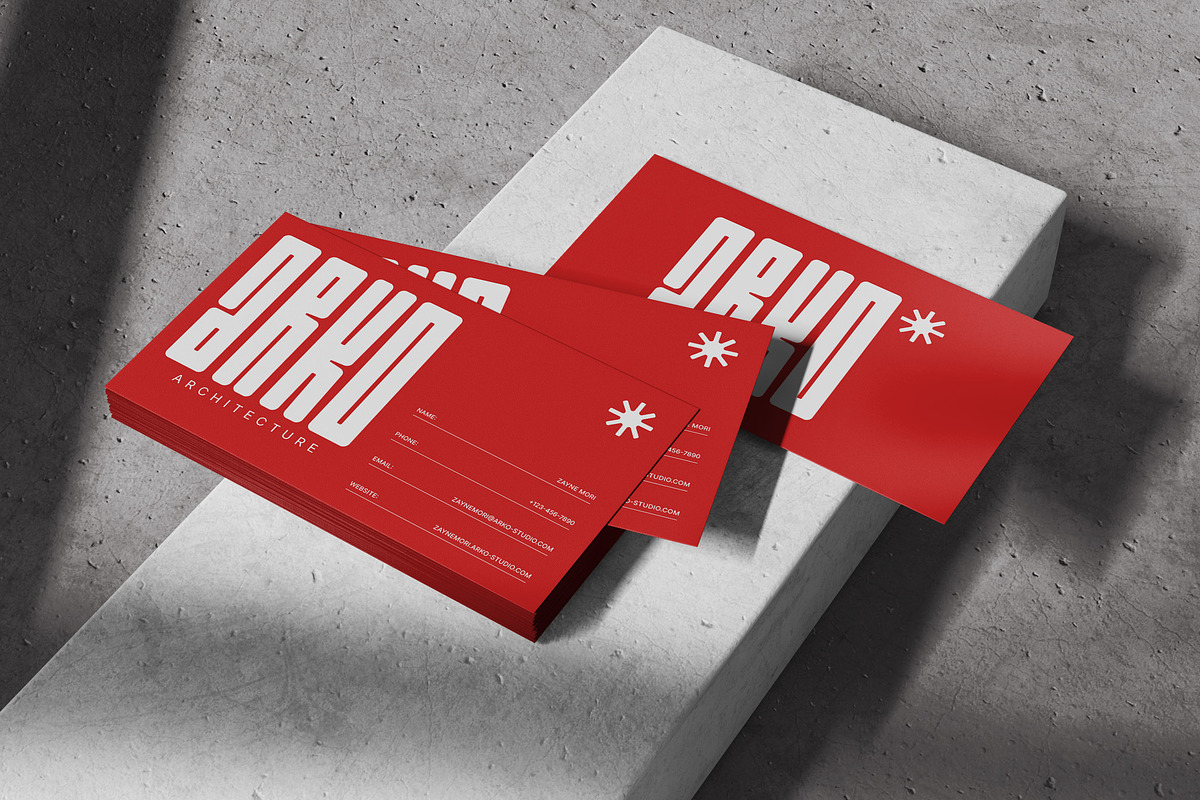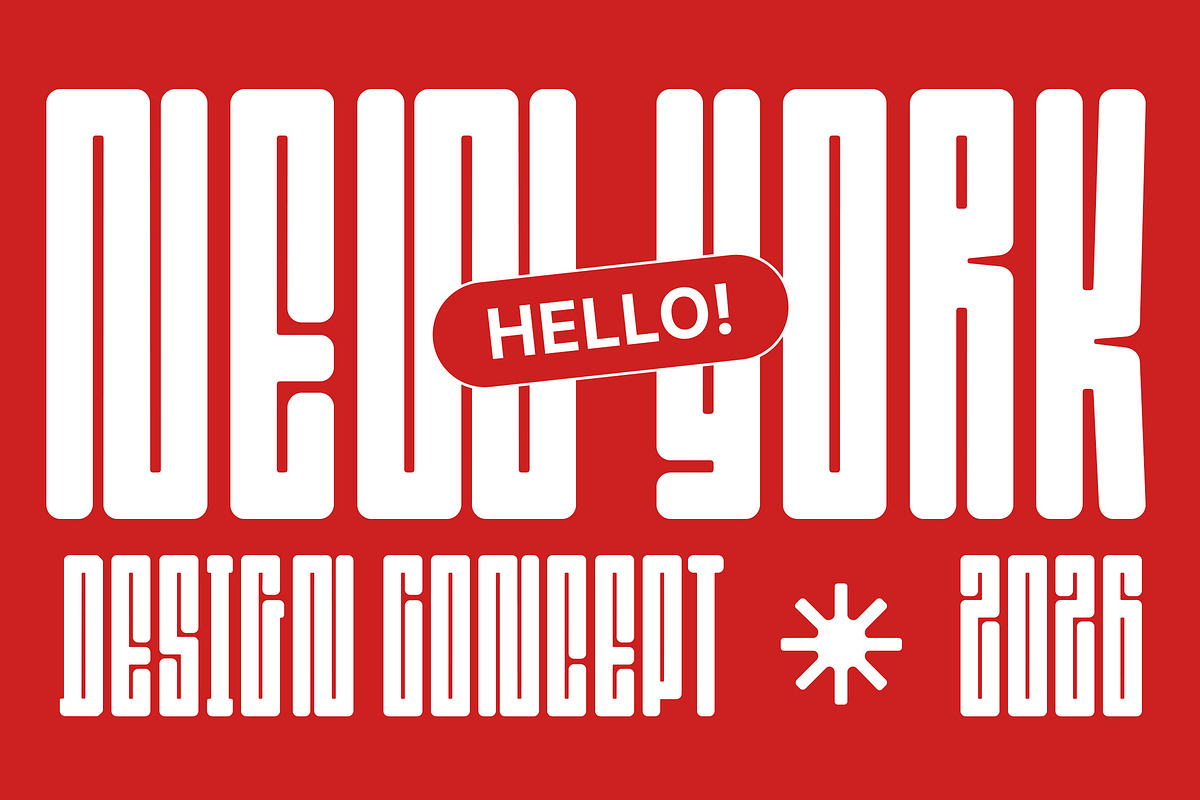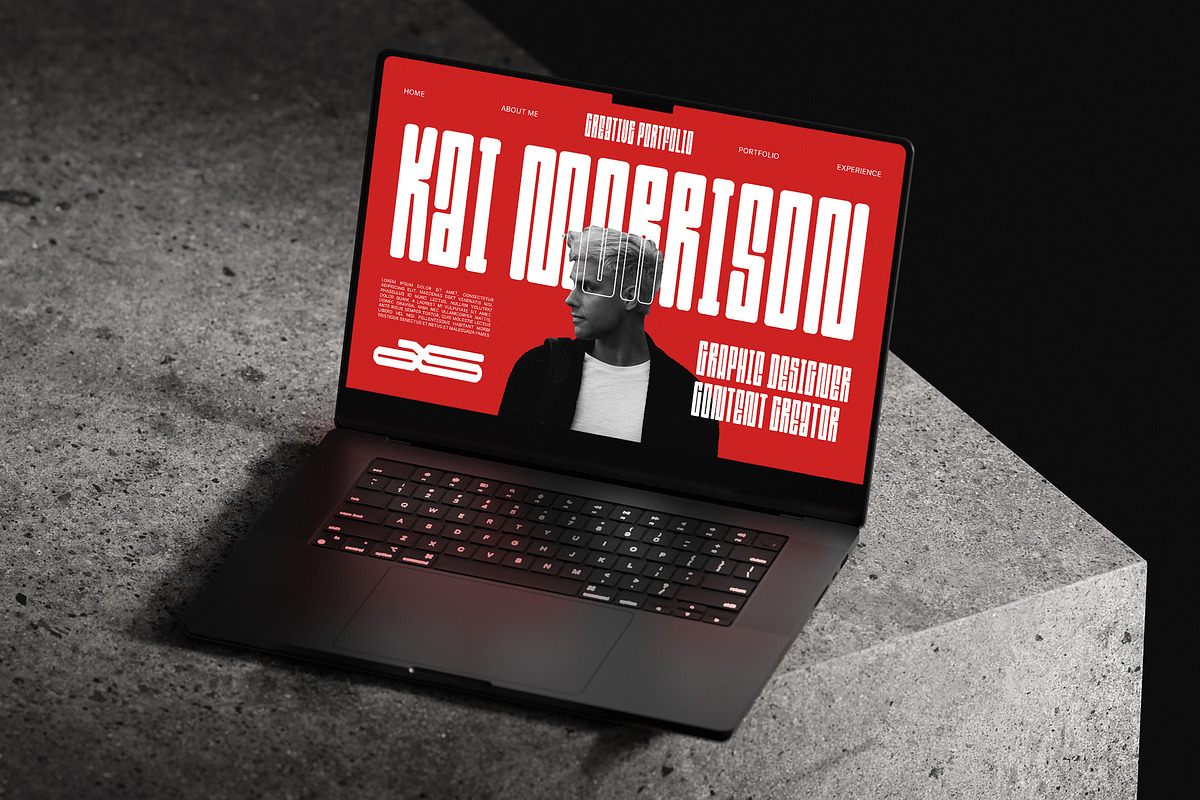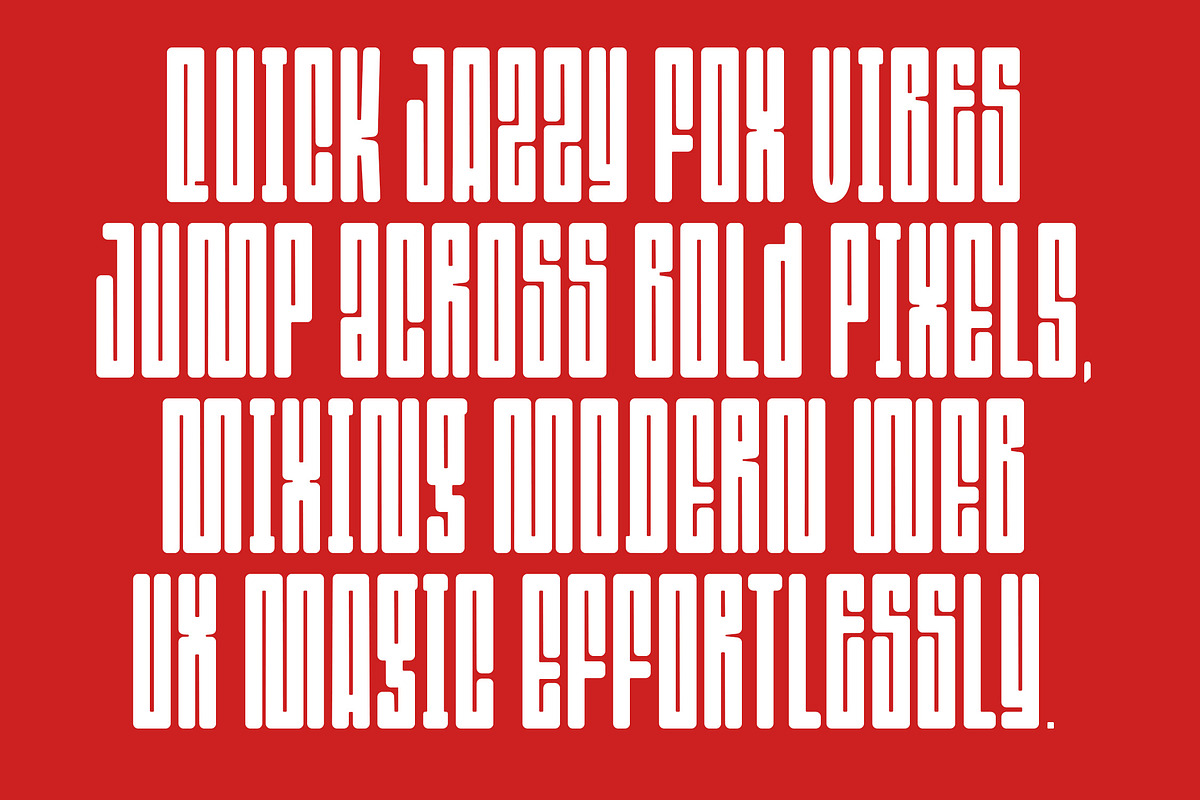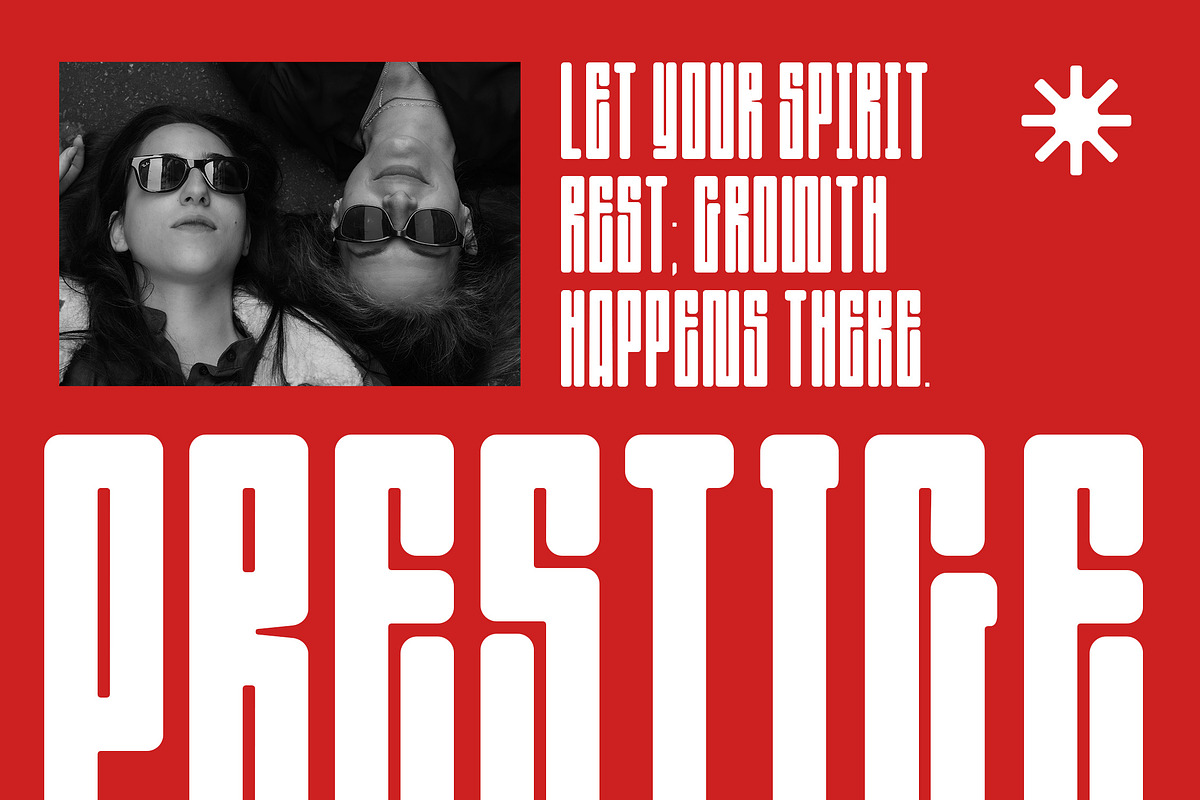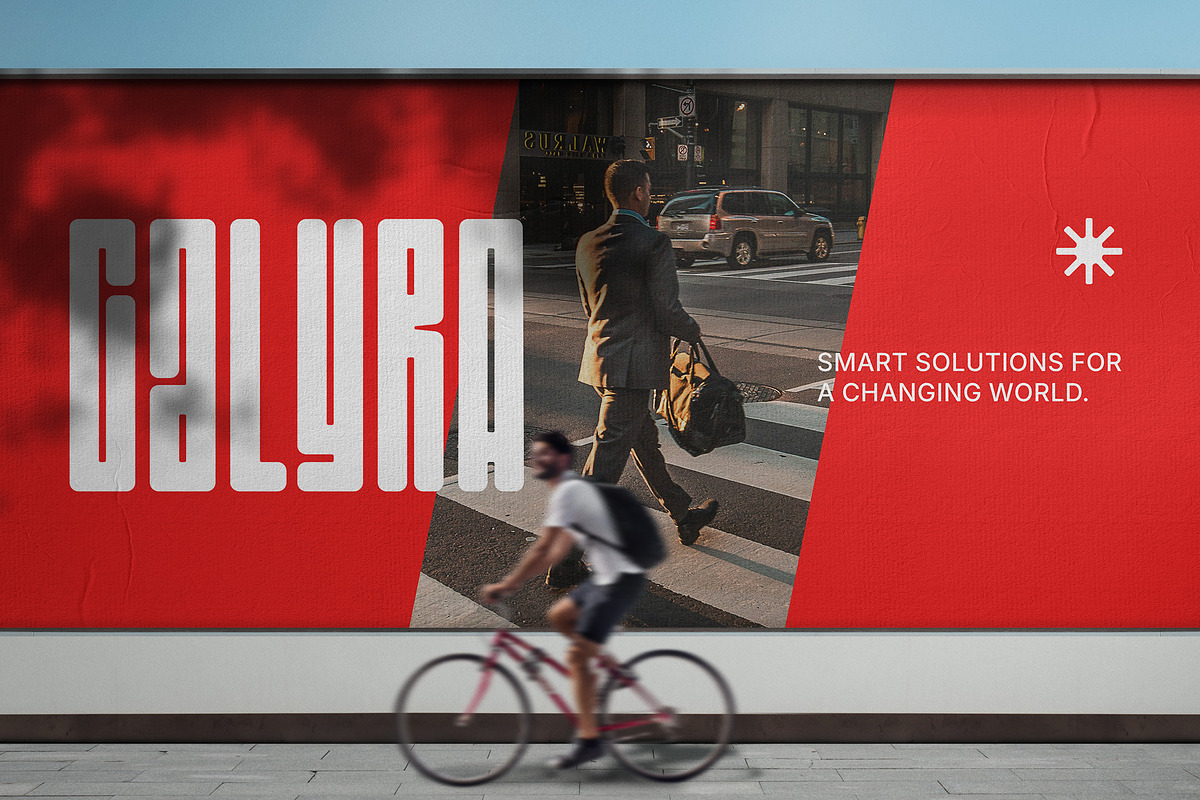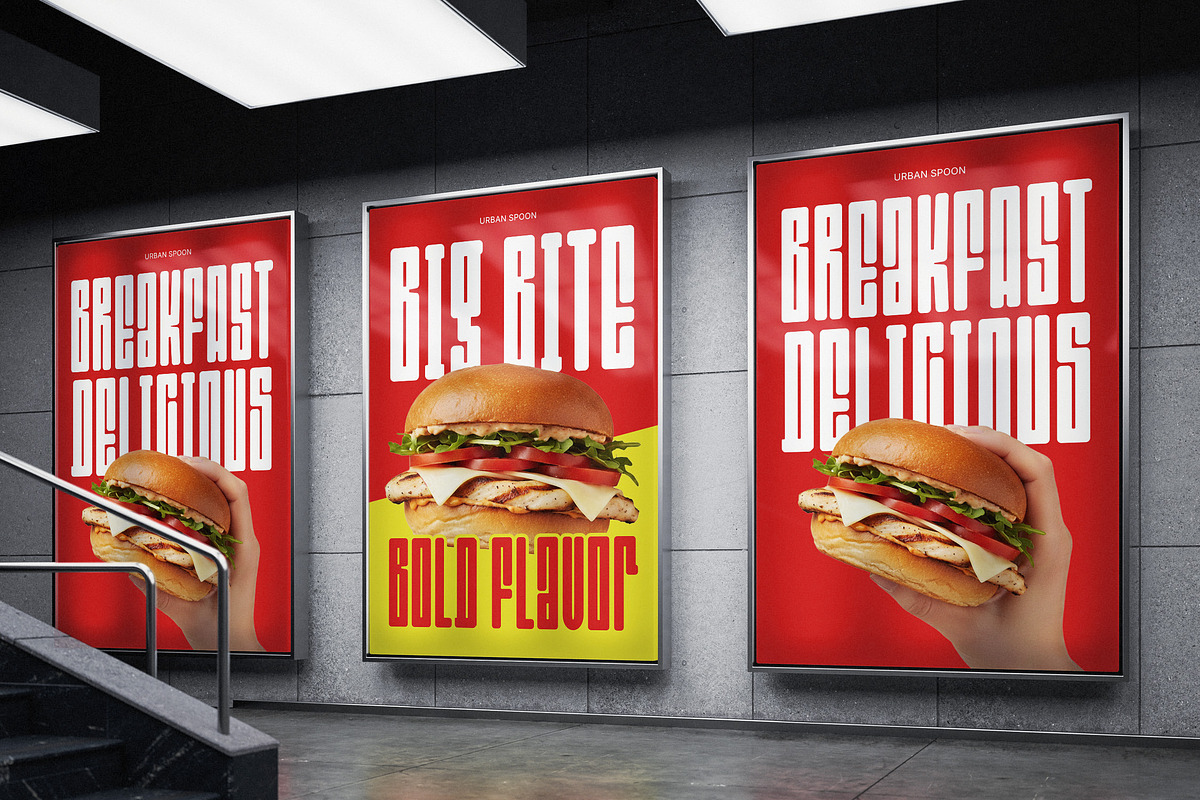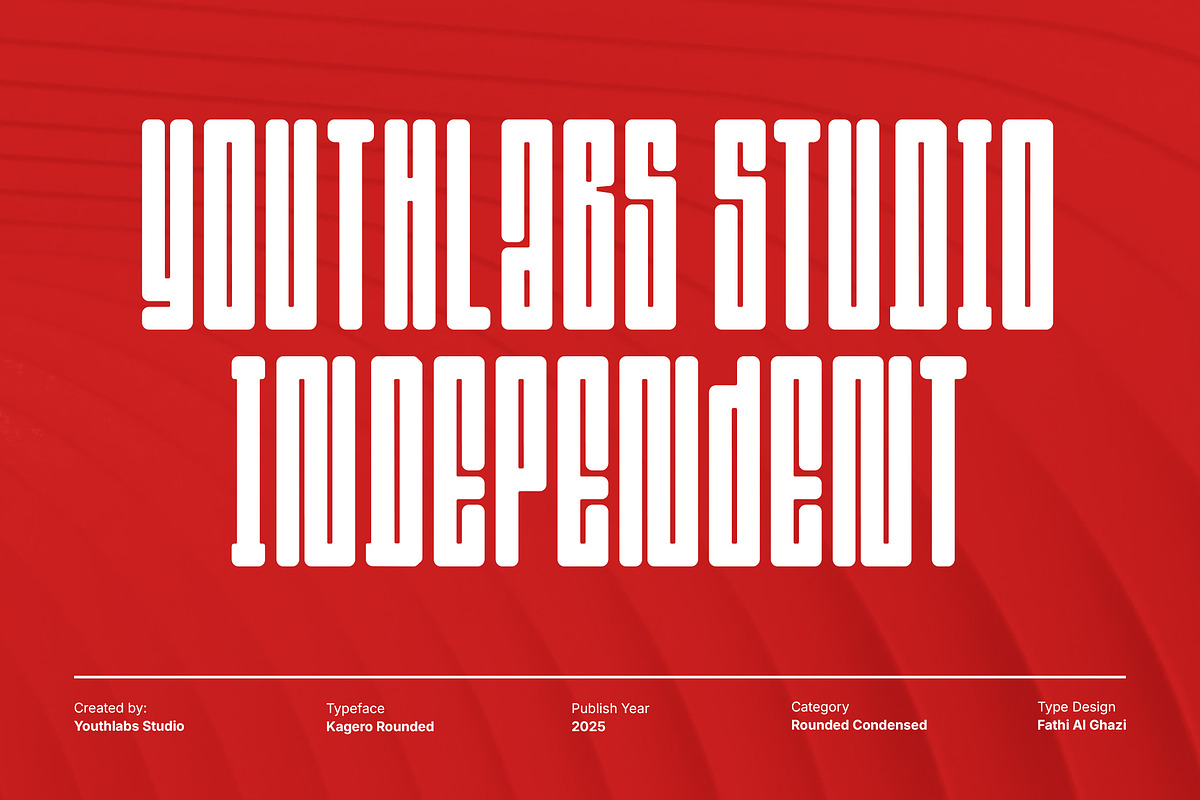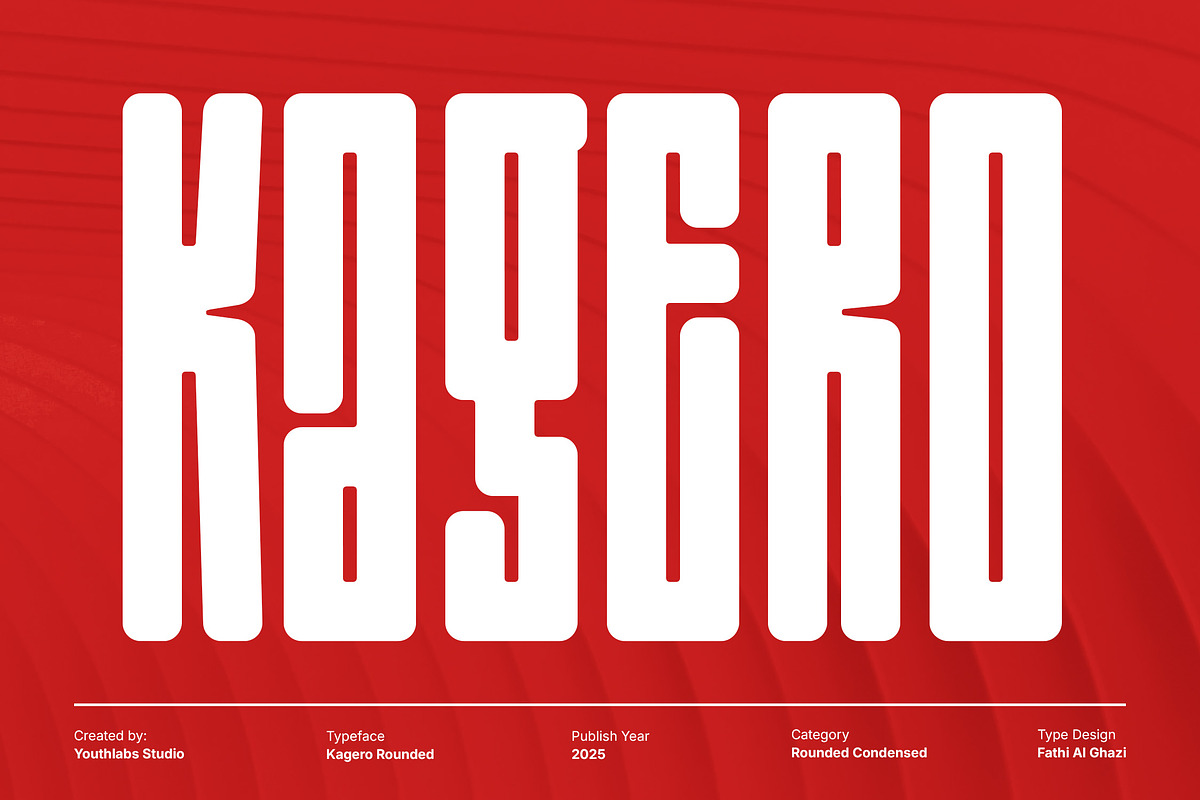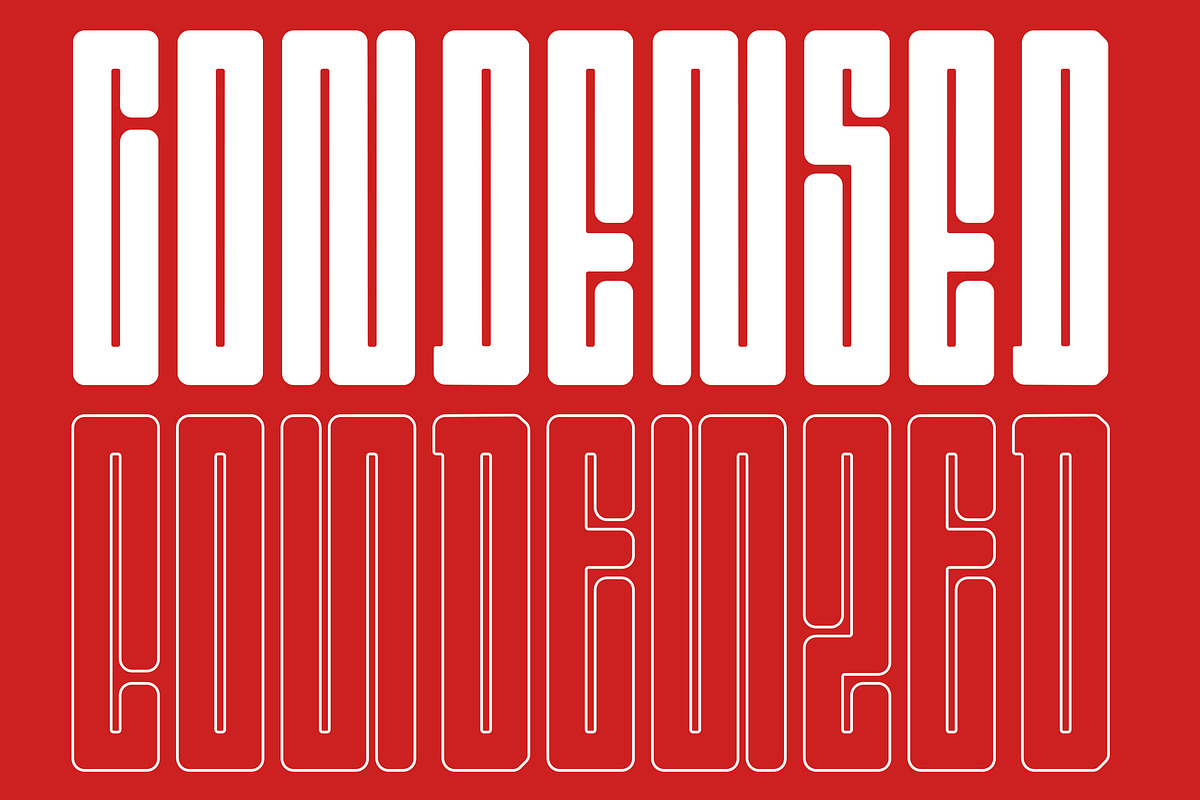
Kagero Rounded – Condensed Display
Kagero Rounded is a bold, rounded condensed display typeface designed to deliver strong visual impact with a friendly and modern tone. Its tall proportions, smooth curves, and compact width make it perfect for headlines, posters, branding, packaging, signage, and editorial layouts where space efficiency meets bold personality. Kagero Rounded balances softness and strength, giving designers a versatile display font that feels contemporary, confident, and approachable.
✨ Key Features
- Rounded condensed display style
- Bold and tall letter proportions
- Smooth, friendly curves
- Strong visual impact for headlines
- Space-efficient condensed width
- Ideal for branding, posters & signage
- Modern and versatile aesthetic